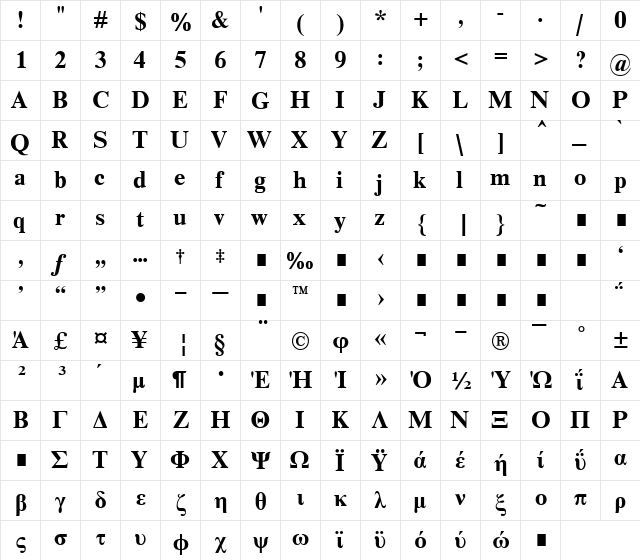
TmsGk Bold
Design Context for TmsGk Typeface
TmsGk offers clean, dependable letterforms without strong stylistic allegiance, making it a practical choice for designers who need flexibility. The heavy weight commands attention and anchors typographic hierarchies.